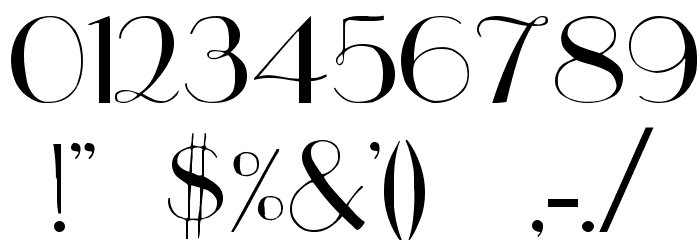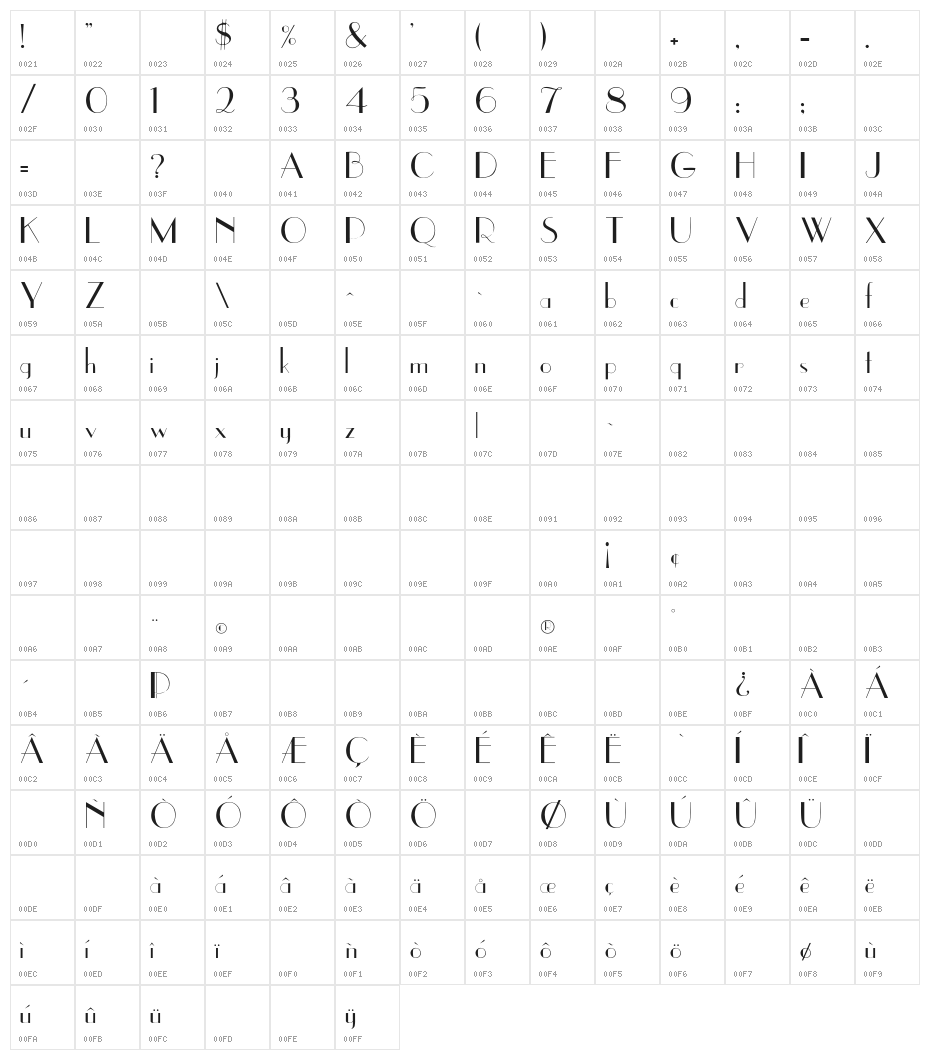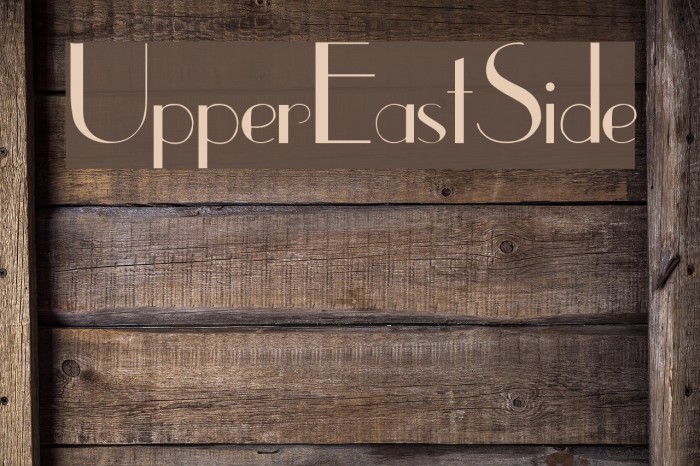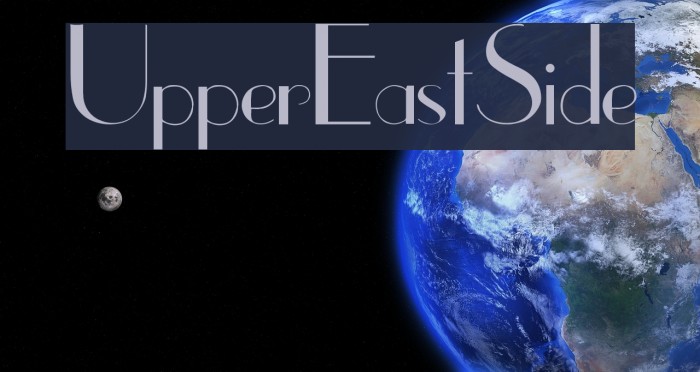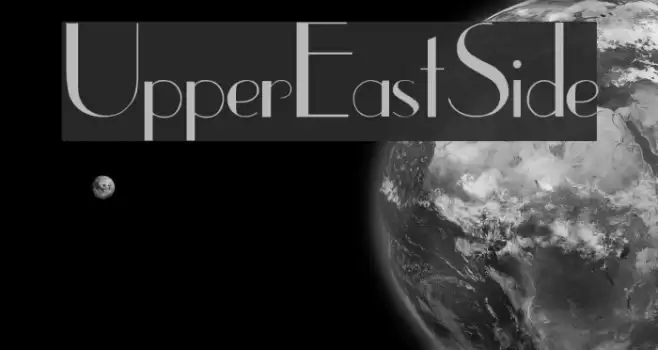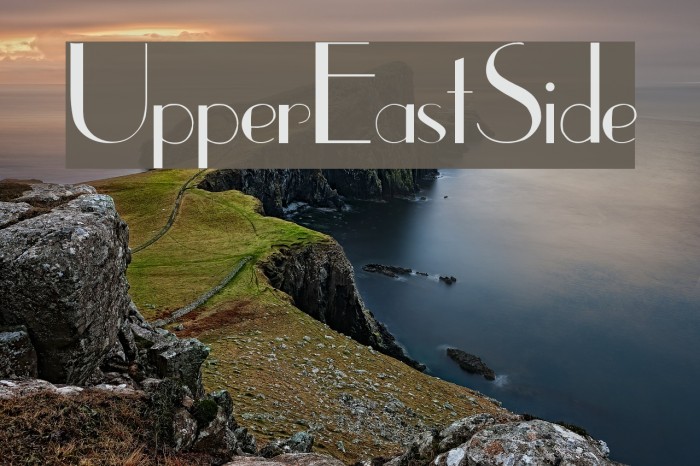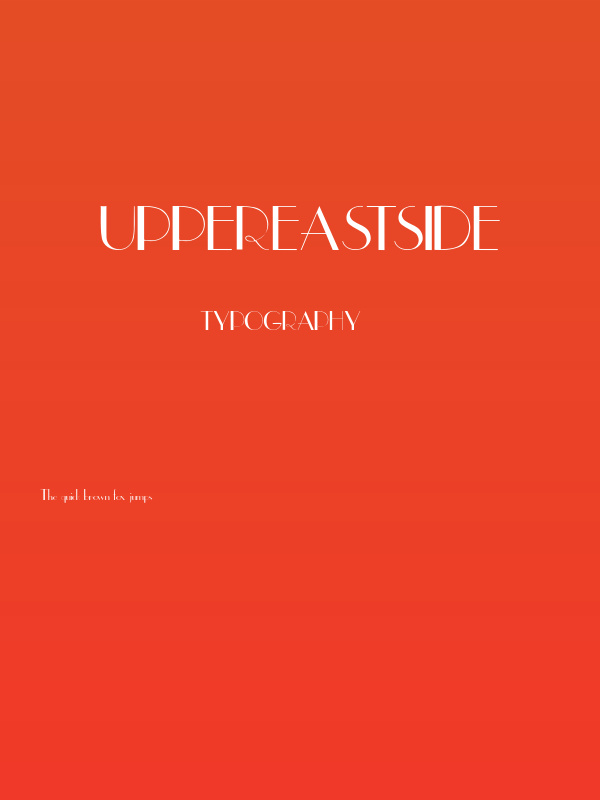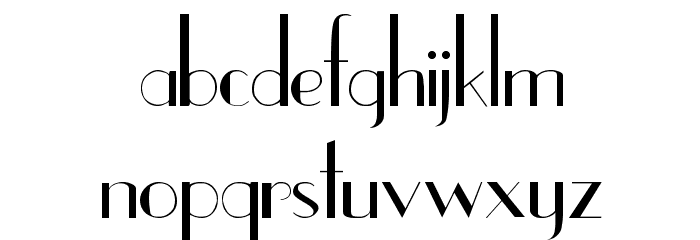
UpperEastSide Font
UpperEastSide Description
This font features a sophisticated and elegant design, characterized by its thin, elongated strokes and high contrast between thick and thin lines. The uppercase letters exhibit a modern, geometric style with sharp angles and clean lines, while the lowercase letters maintain a more fluid and graceful appearance. The numerals are distinct and stylish, complementing the overall aesthetic. Special characters are designed with a similar attention to detail, enhancing the font's versatility. This font's refined and contemporary look makes it suitable for a variety of design applications.
| Overall Style | Elegant and contemporary |
| Proposed Projects | Ideal for luxury branding, fashion magazines, wedding invitations, and high-end product packaging. |